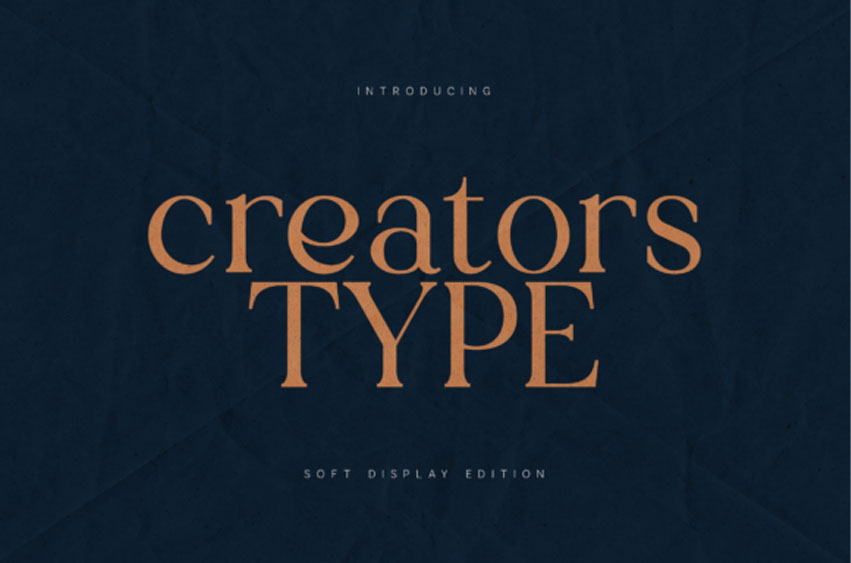
Creators Type Font
Creators Type Font Soft Display Edition is a refined modern serif designed with smooth curves, elegant contrast, and timeless proportions.
The letterforms feel soft yet structured, balancing classic serif sophistication with contemporary minimalism. It’s crafted for branding projects that require warmth, clarity, and premium presence.
The Creators Type Soft Display font is a dream for lifestyle bloggers, wellness brands, and organic food packaging. As a Creators Type Soft Display typeface, it offers incredible versatility, working just as well in a printed book as it does on a high-resolution screen. Try pairing the Creators Type Soft Display font with warm, pastel tones or grainy photography to tap into the popular “soft-minimalism” trend currently dominating social media and editorial design.
With carefully shaped serifs and clean spacing, Creators Type works beautifully in:
• Luxury branding
• Editorial layouts
• Fashion & beauty projects
• Logo design
• Packaging
• Invitations
• Social media campaigns
• Premium marketing materials
Creators Type is designed for designers who value softness, elegance, and modern serif aesthetics.